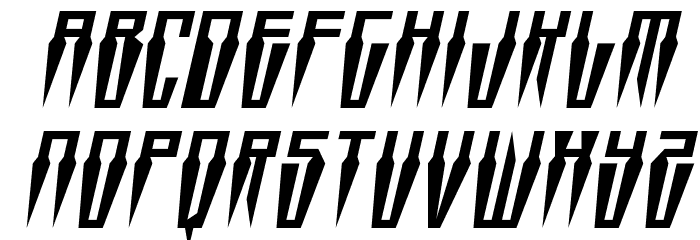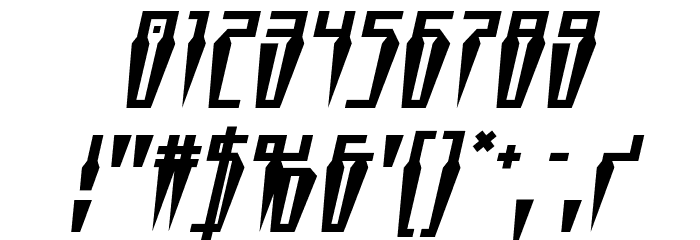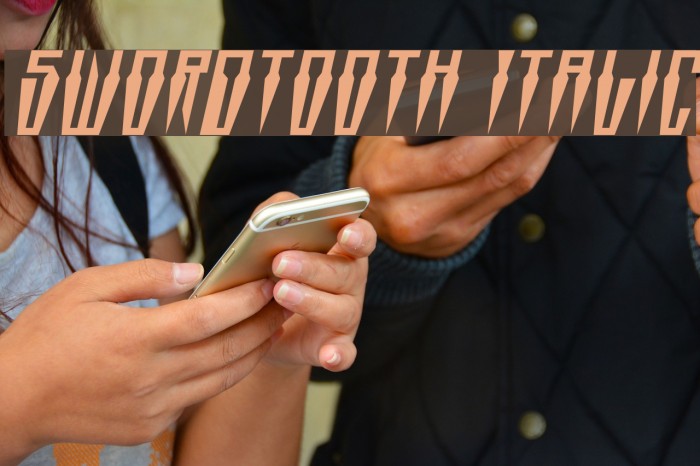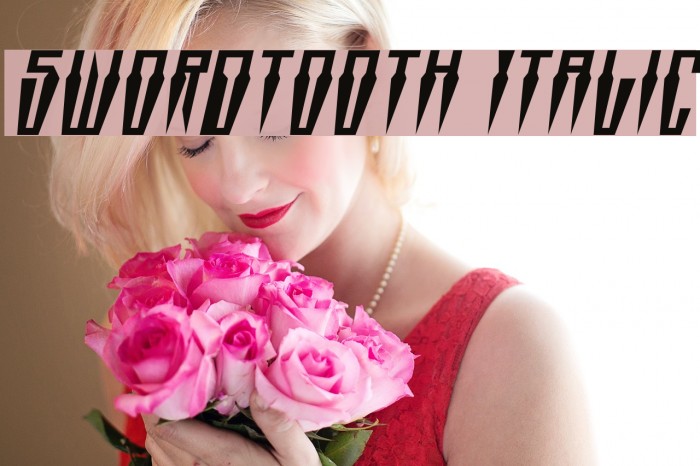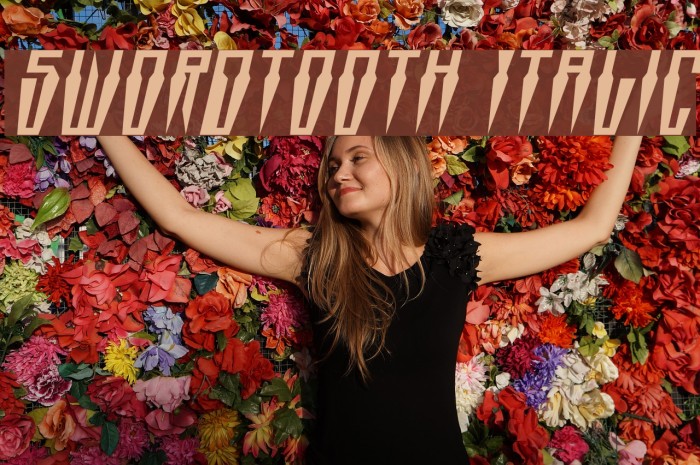
Swordtooth Italic Font
This font features a bold and aggressive design with sharp, angular edges that give it a fierce and dynamic appearance. The italicized style adds a sense of motion and energy, making it stand out with its unique, sword-like serifs. Each character is crafted with precision, emphasizing vertical strokes that taper into fine points, creating a high-contrast look. The uppercase and lowercase letters maintain a consistent style, while the numerals and special characters complement the overall aesthetic. This font is perfect for projects that require a strong, impactful visual presence.
A bold, italicized font with sharp, angular edges and high contrast.
- Proposed Projects: Ideal for video game titles, movie posters, sports team logos, and edgy branding materials.